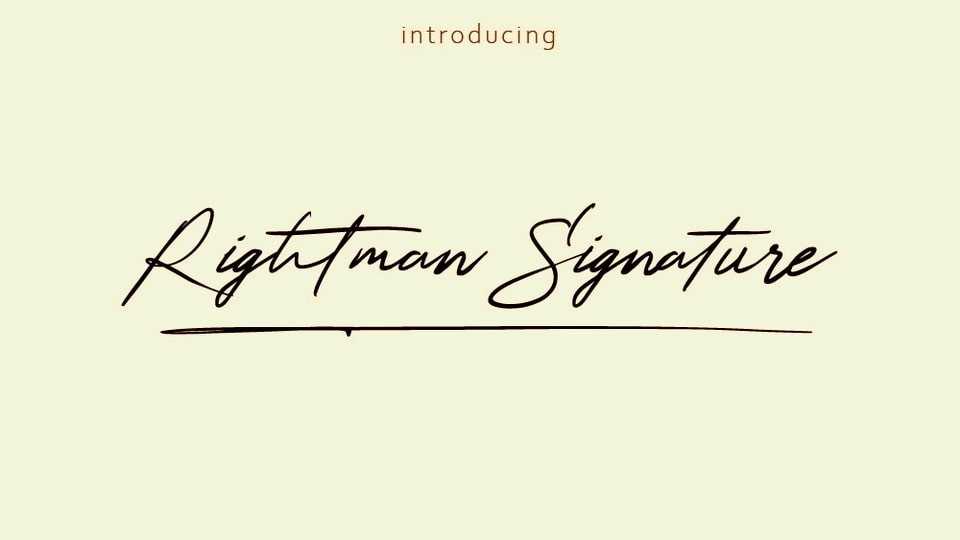
Download Rightman Signature font, the typeface that combines the grace of cursive handwriting with the uniqueness of a signature. This font is ideal for designs that demand a sense of warmth and personal connection.
Designer: Linafis Studio